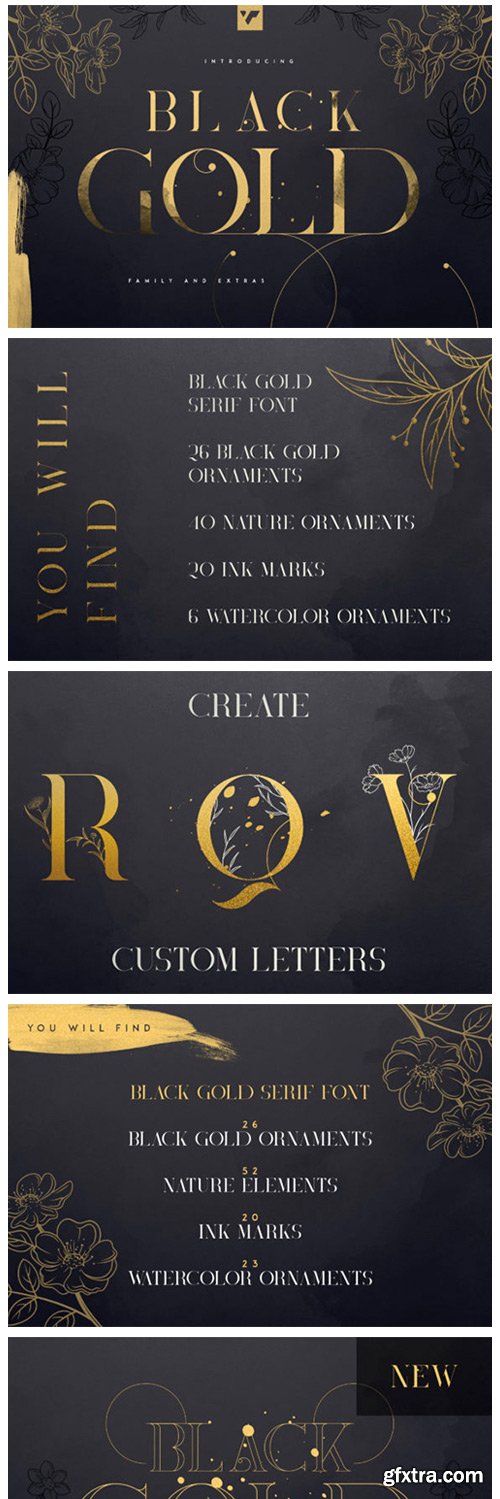
Black Gold Serif Font + Extras
Black Gold is an elegant, authentic and thin serif font. It can be used for various purposes such as logos, wedding invitations, headings, t-shirts, letterhead, signage, labels, news, posters, badges and so much more.